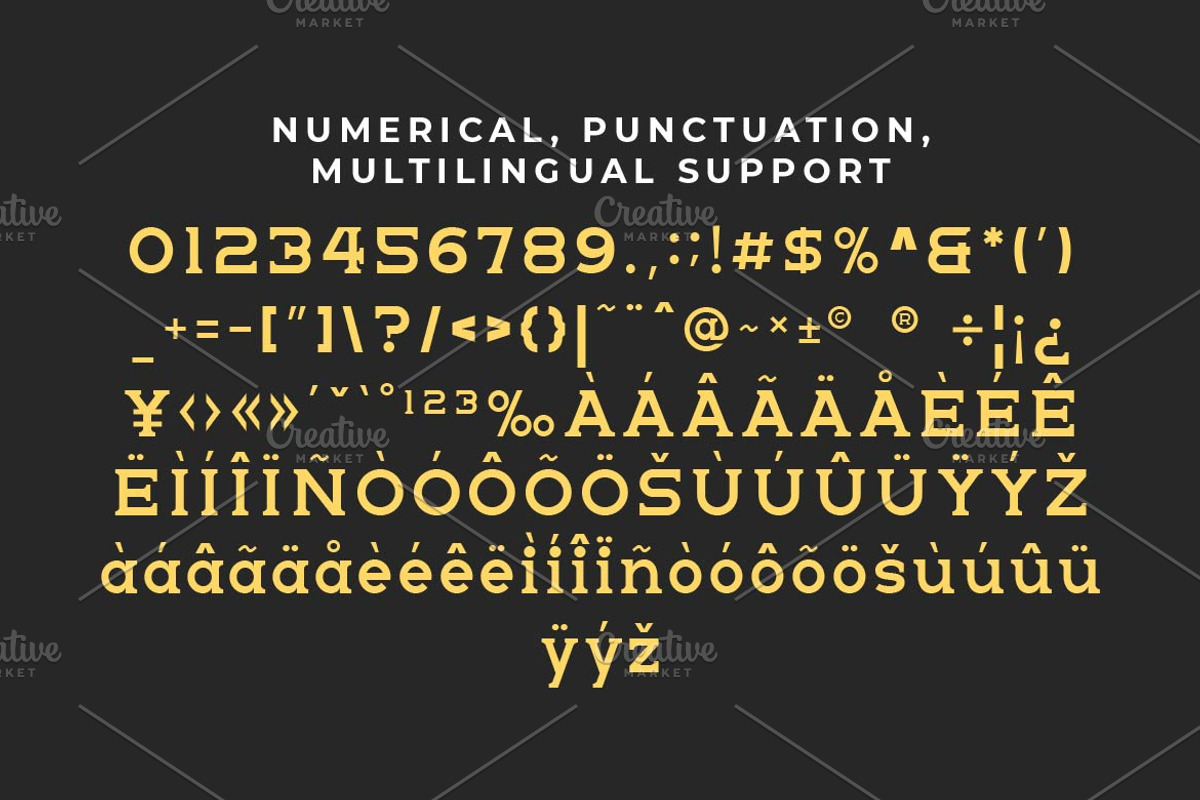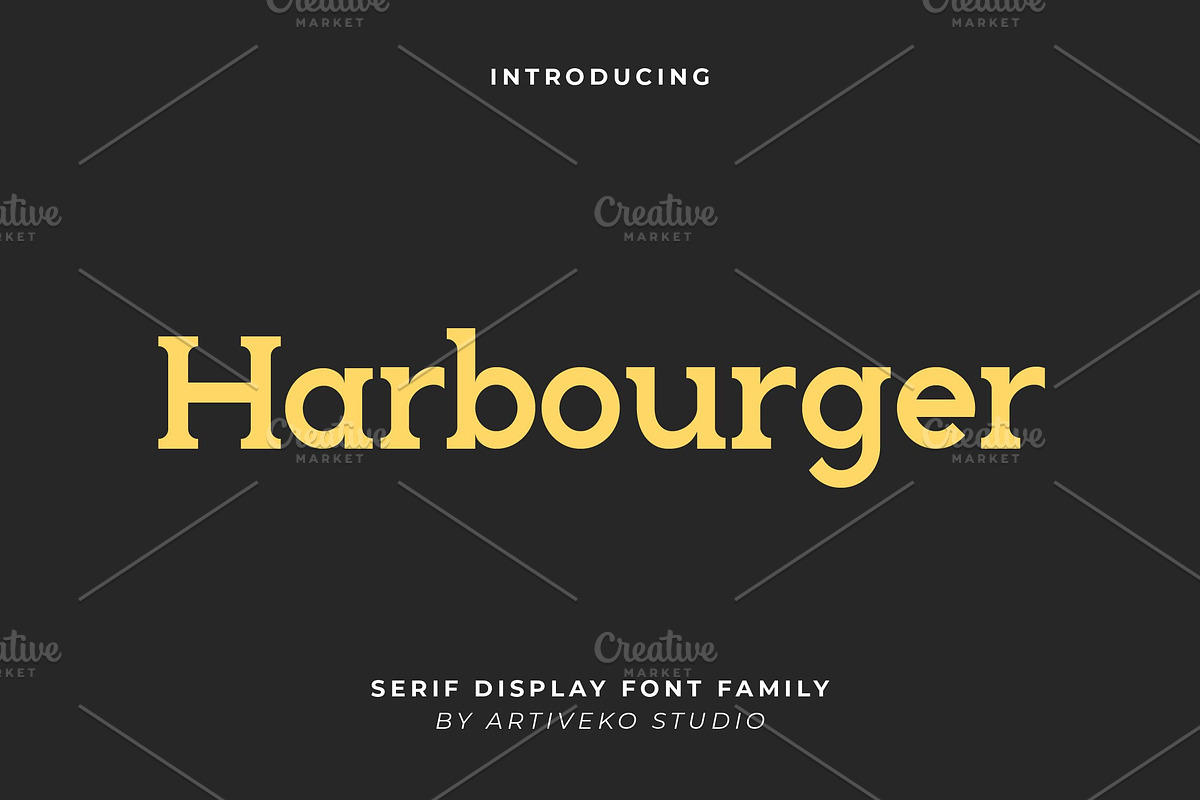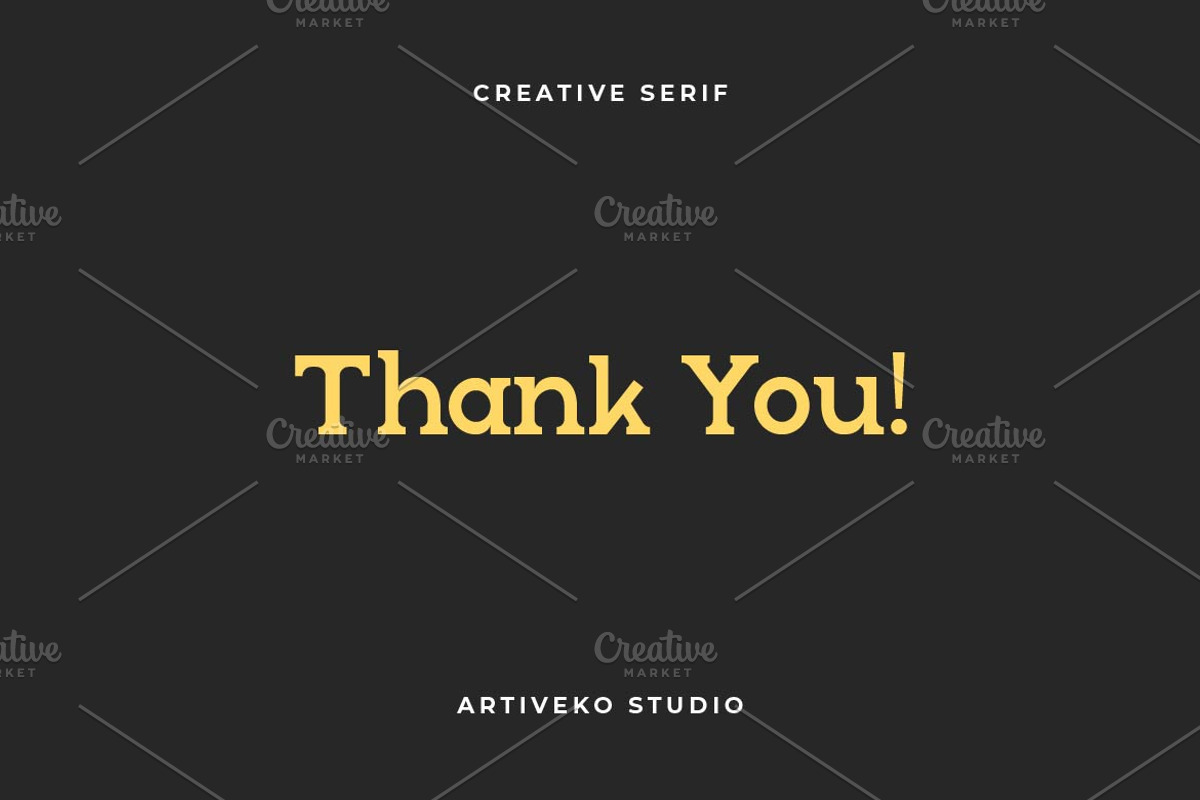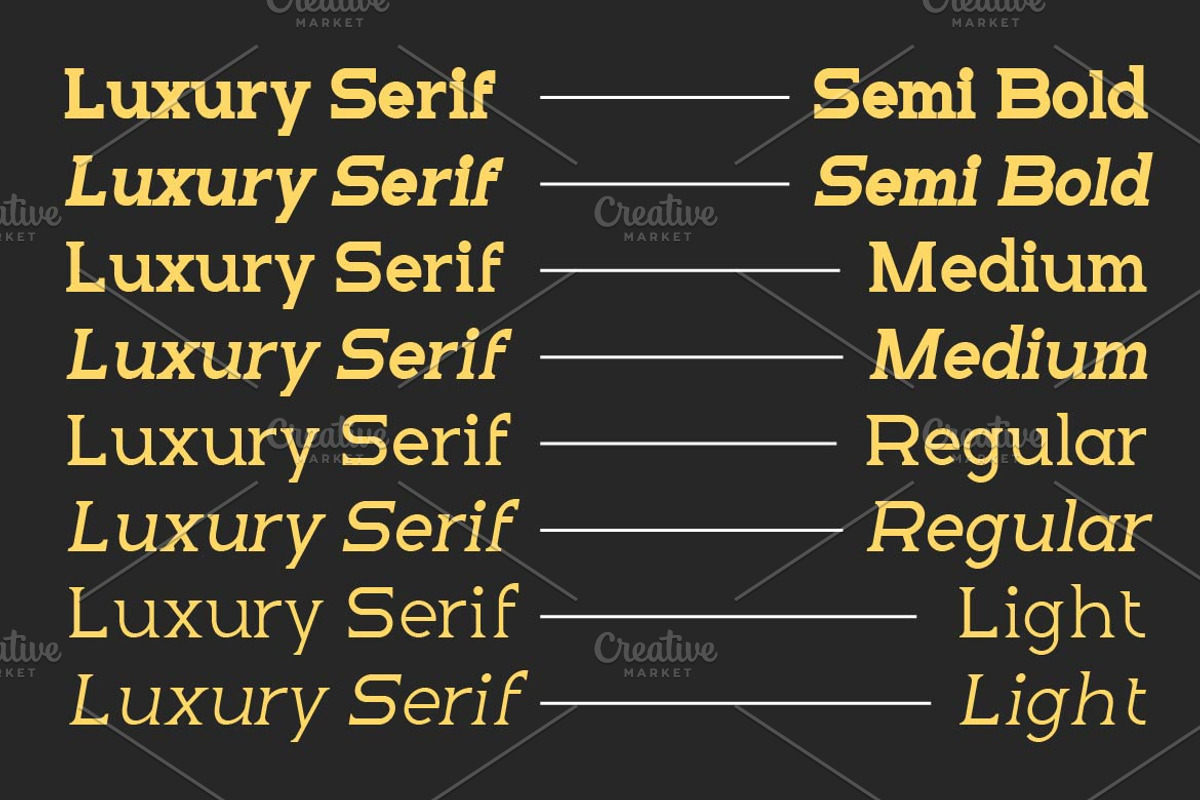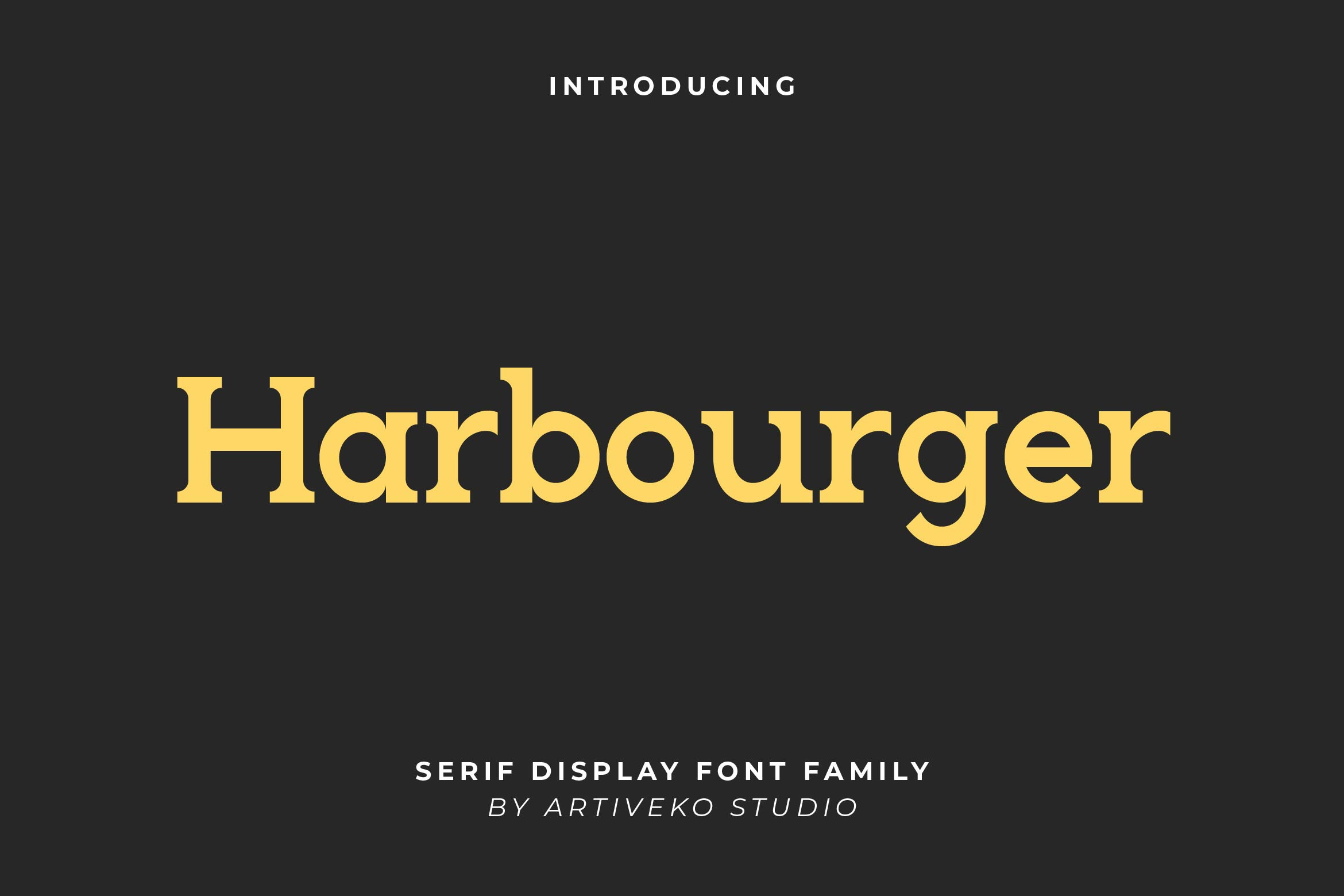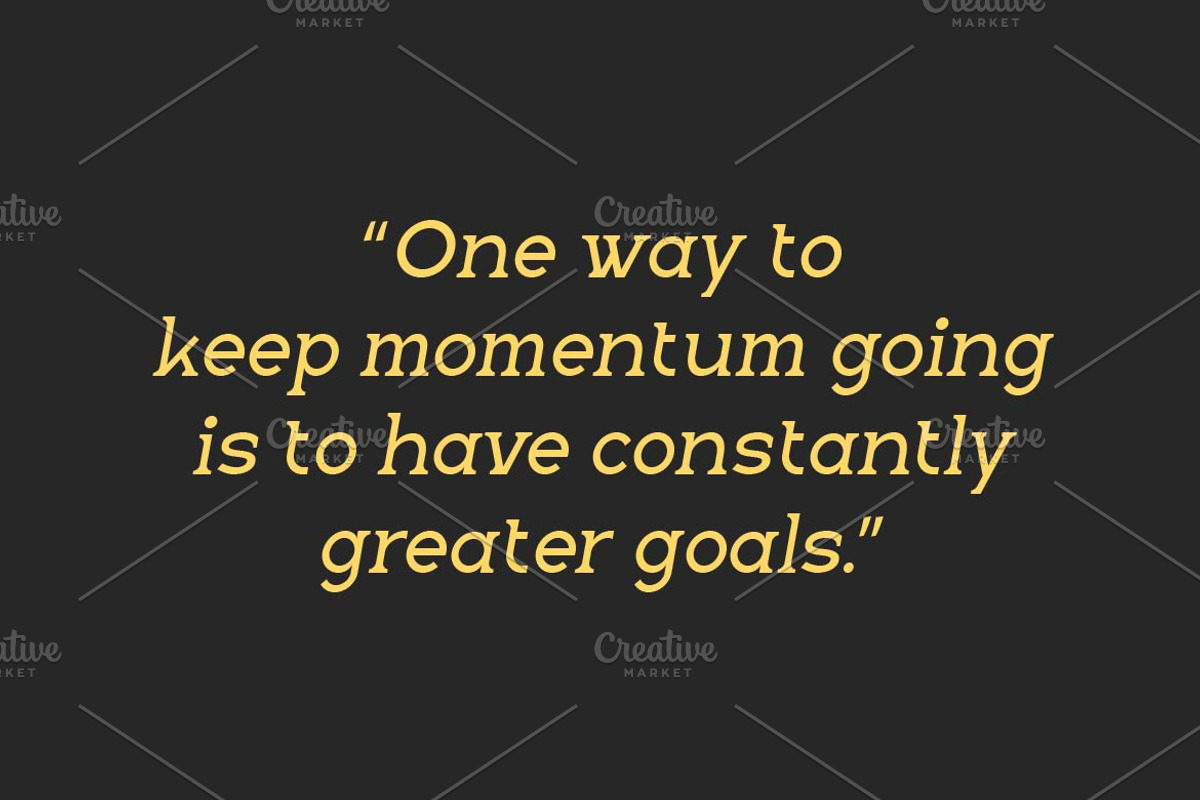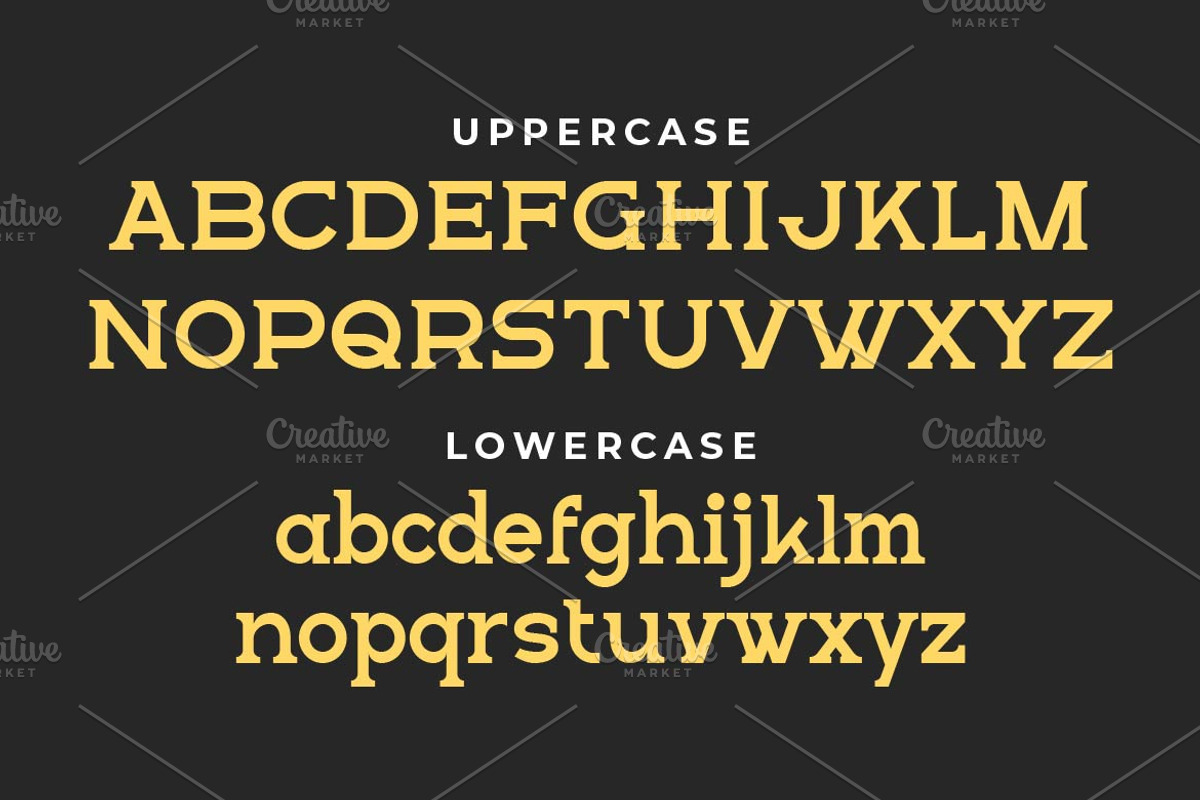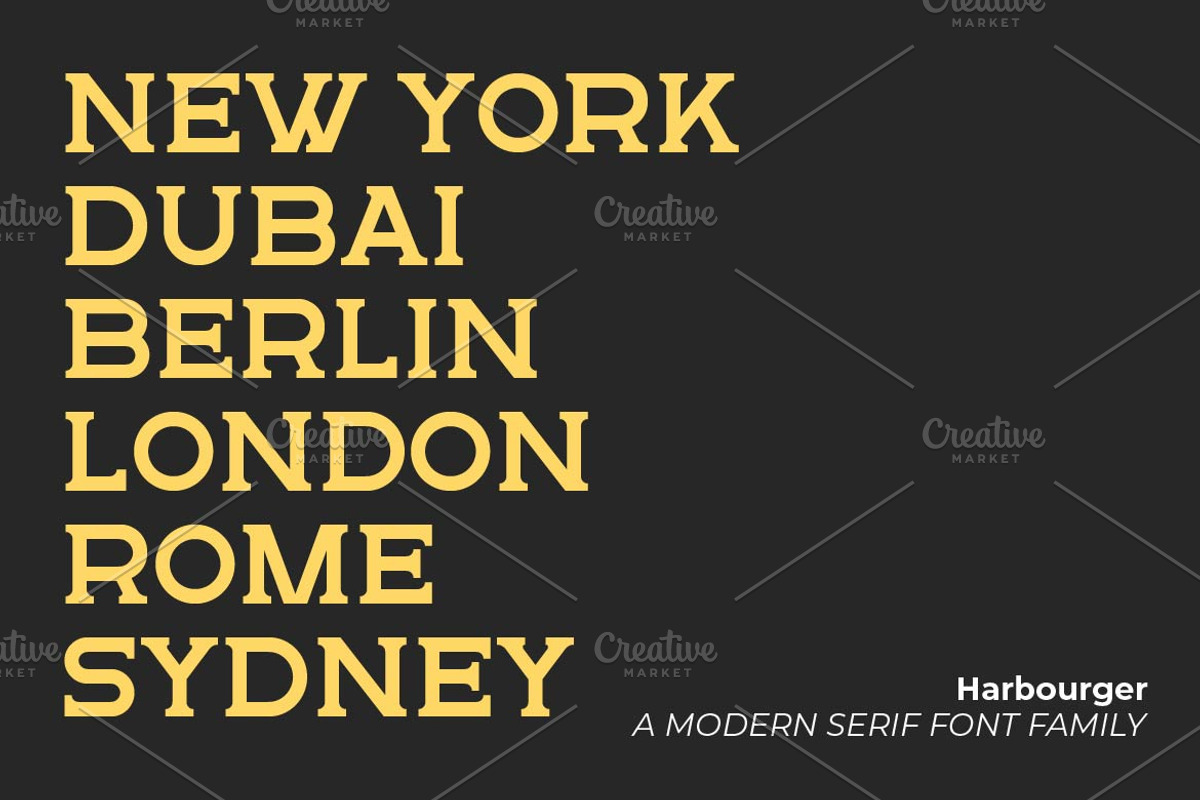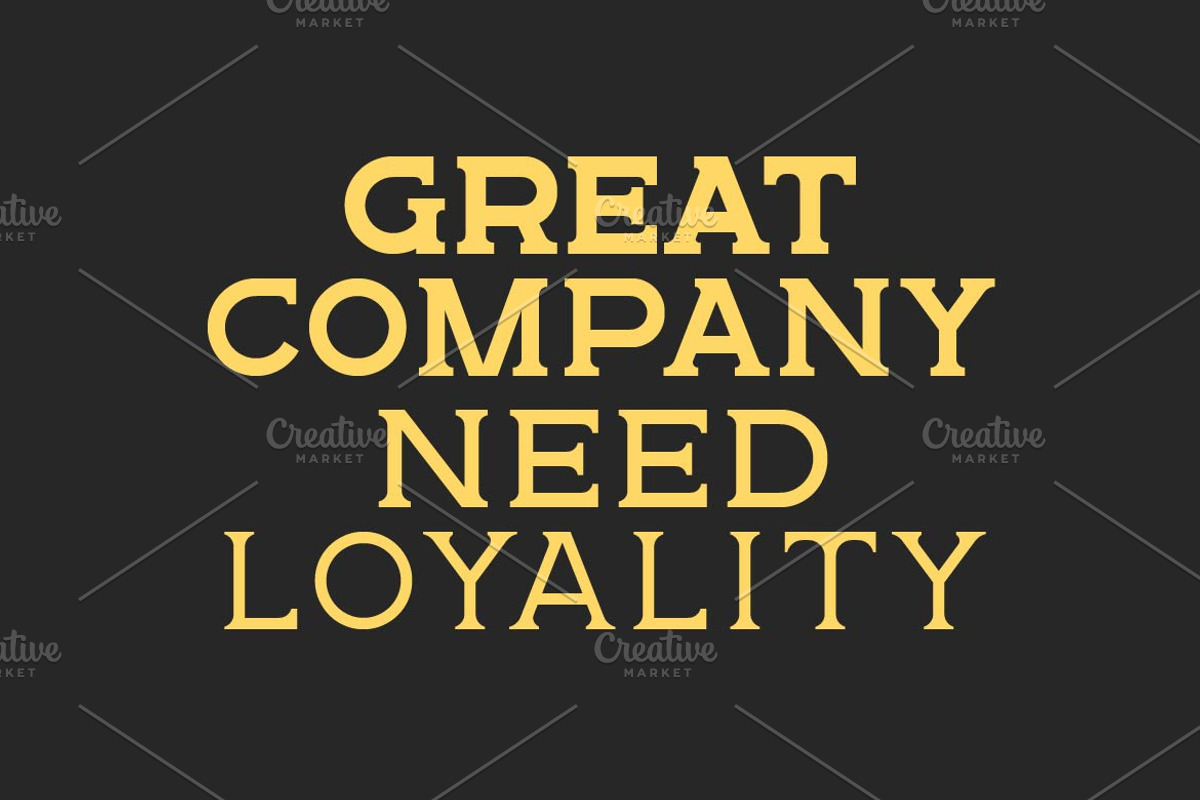
Harbourger Serif Font Family
Harbourger is a modern serif font designed with a blend of elegance and contemporary appeal. Featuring refined letterforms and balanced proportions, this typeface is perfect for luxury branding, editorial layouts, packaging, and high-end design projects. With multilingual support, ligatures, and alternates, Harbourger brings sophistication and versatility, making it an ideal choice for projects that demand a timeless yet modern aesthetic.